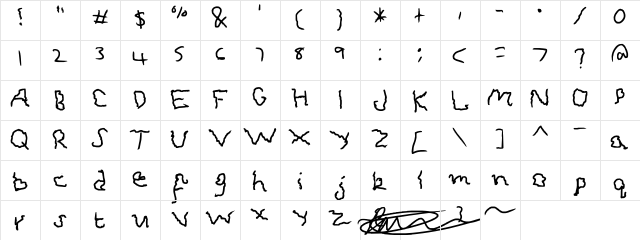
scary fontt Regular Font Preview
scary fontt Regular
scary fontt Regular Font Details
Design Context for scary fontt Typeface
scary fontt leans into the macabre with letterforms designed to disturb and intrigue in equal measure.
Ideal for Halloween projects, horror film titles, haunted house signage, and dark editorial design.
Font Pairing: Pair with a clean neutral sans-serif for body copy to let scary fontt's character lead without overwhelming the composition.
Pro Tip: scary fontt works best as a headline or focal element. Pair it against plain, neutral body text to amplify the contrast.